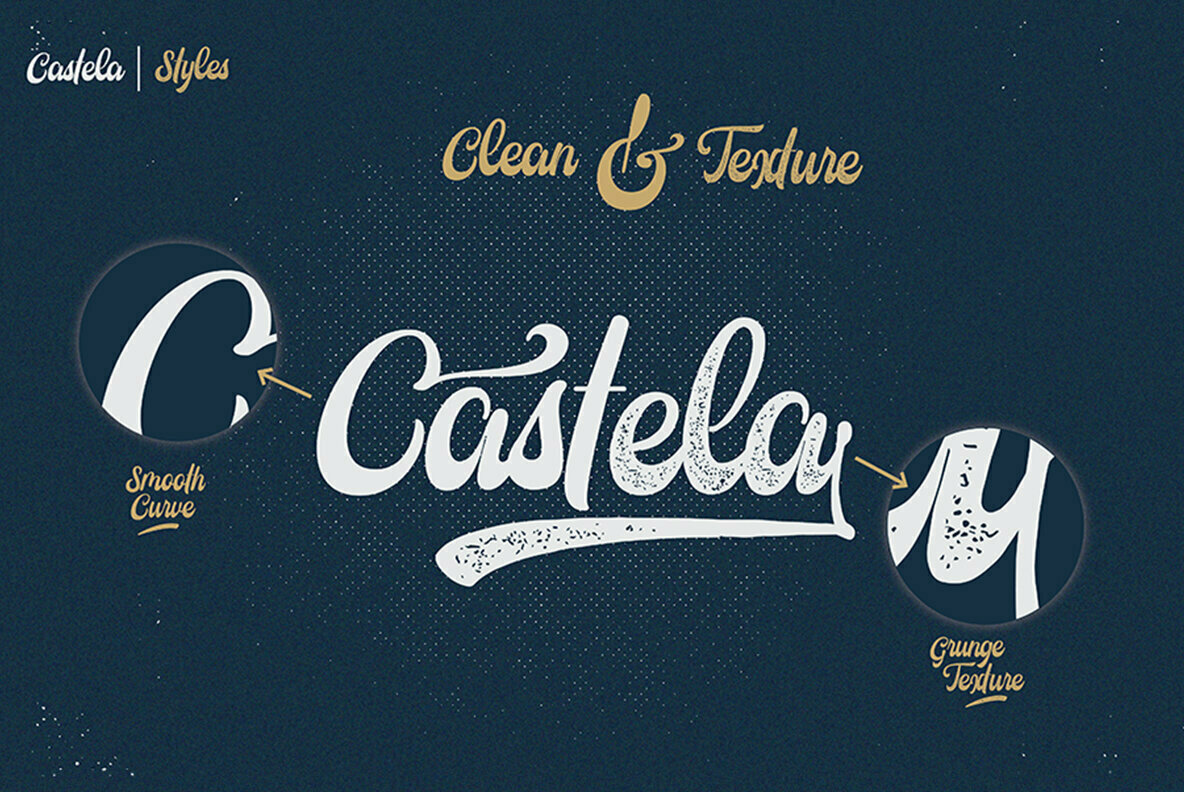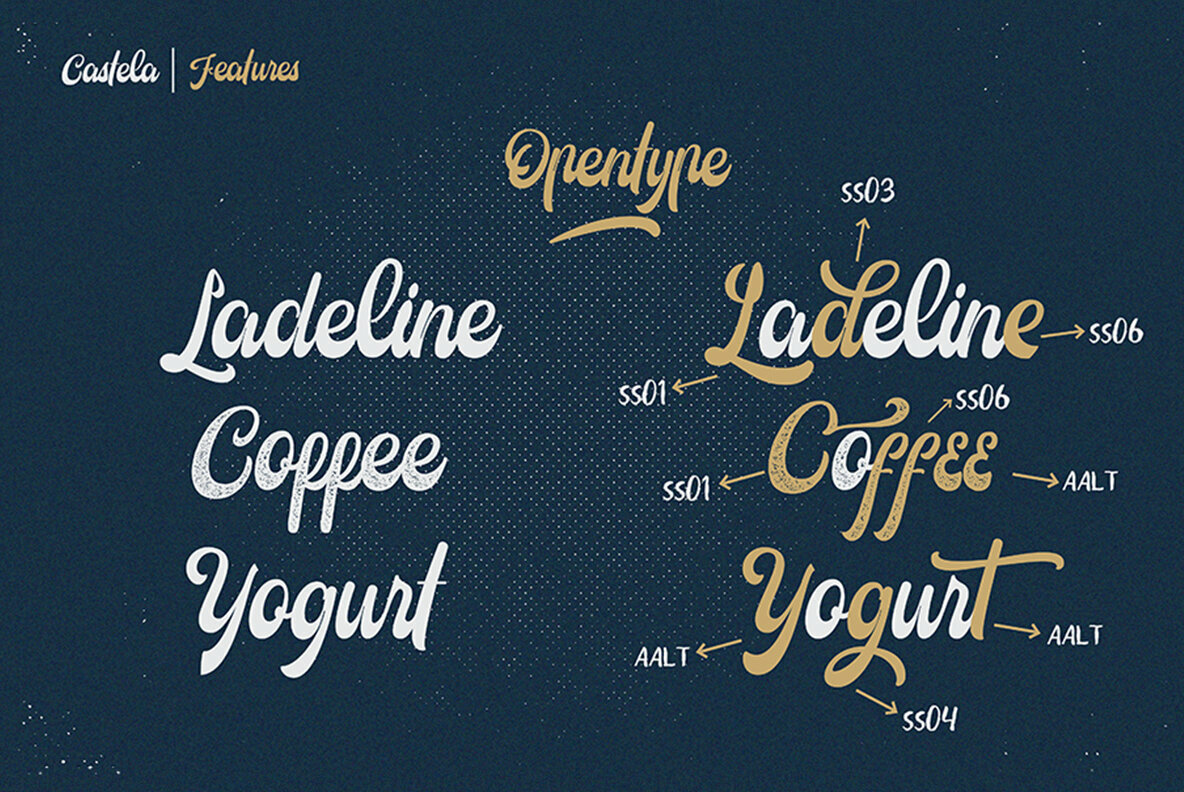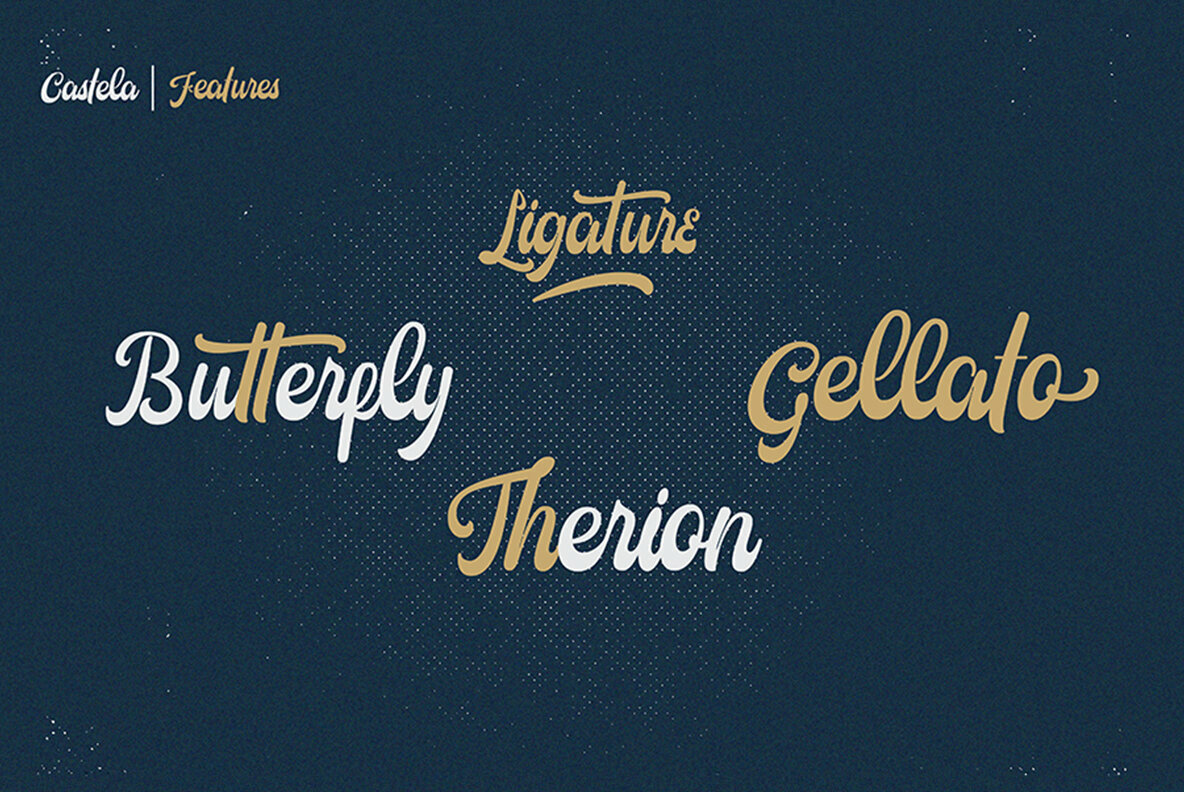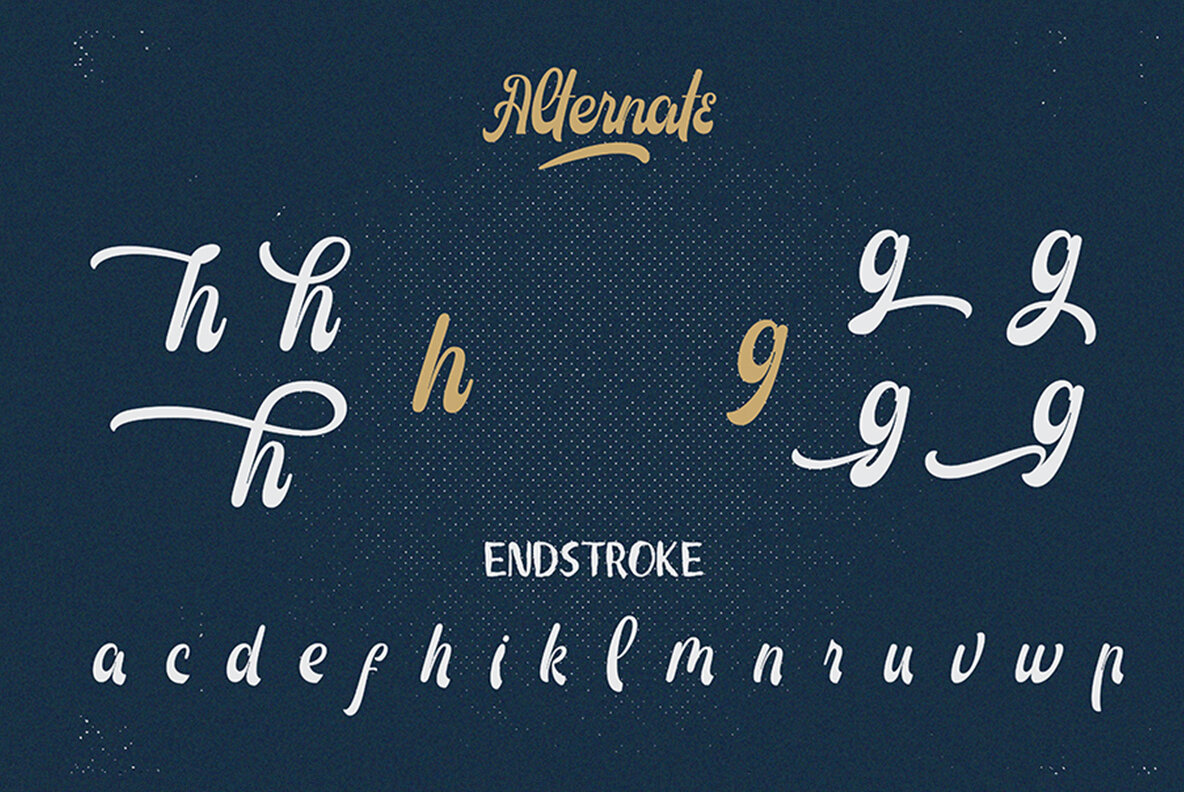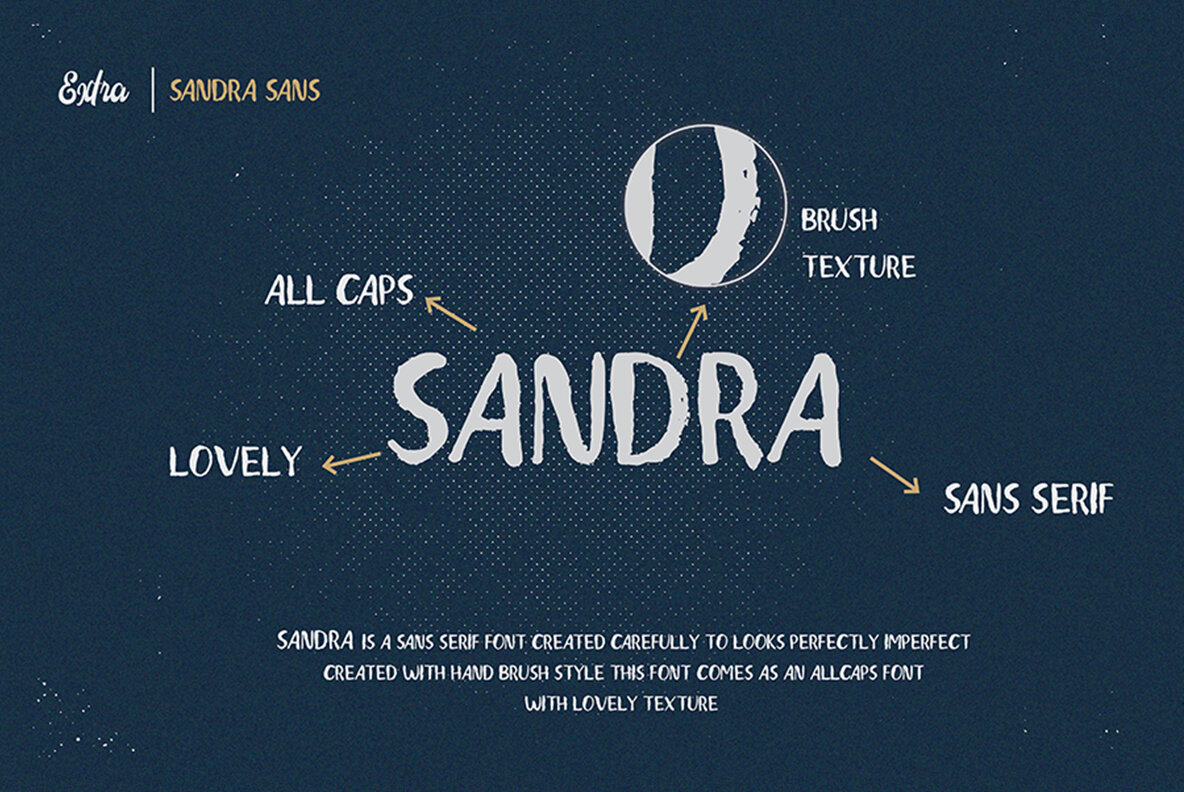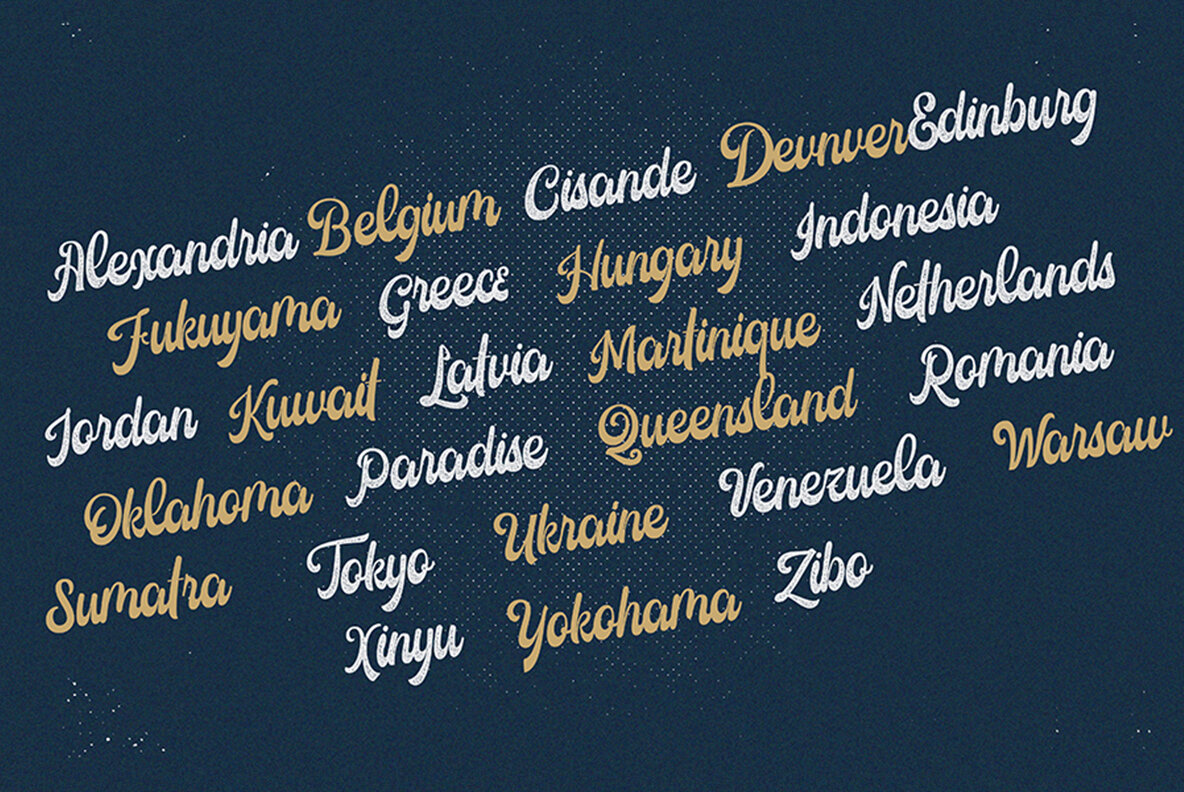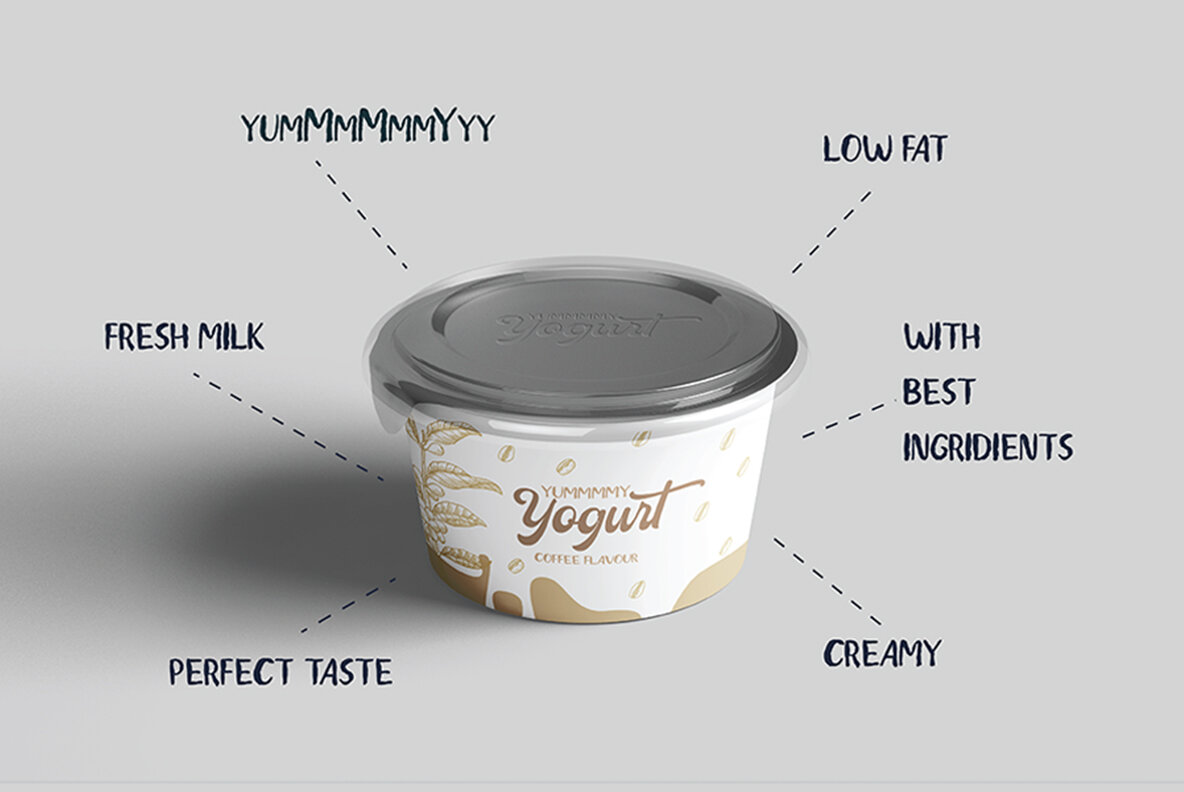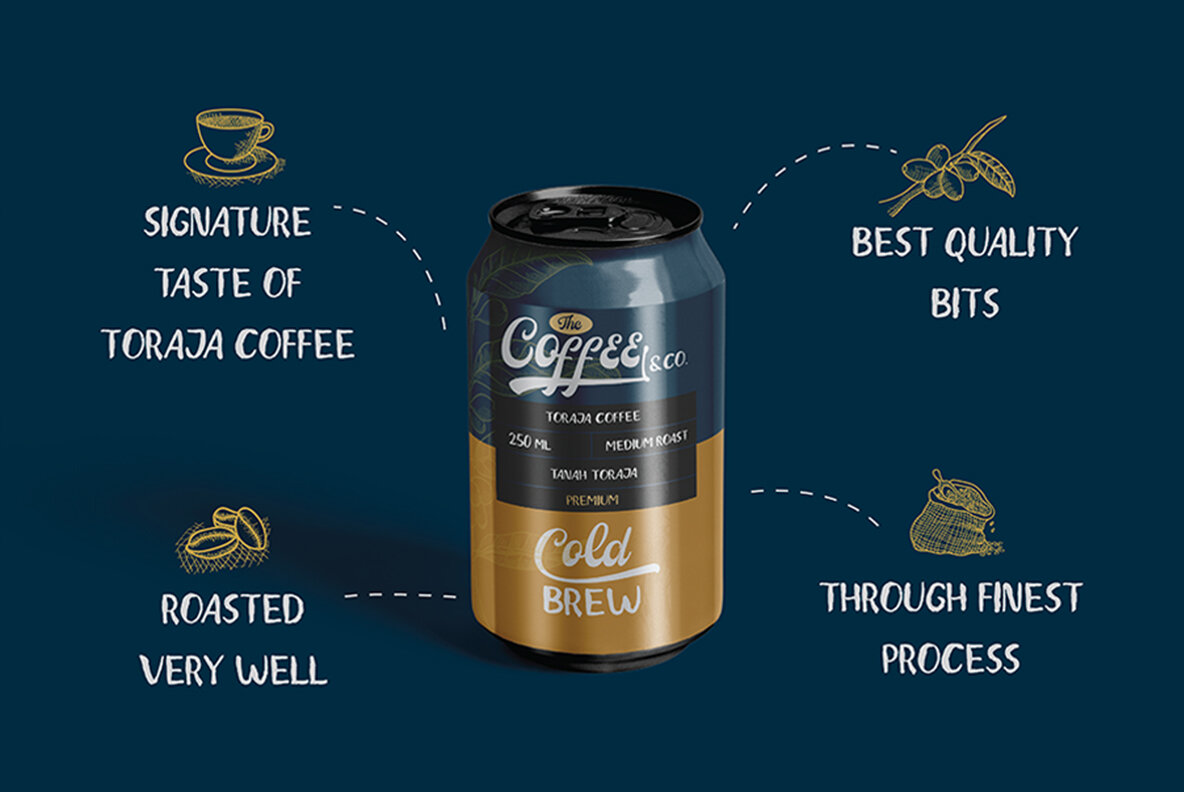
Castela Font
Castela Clean
Castela Texture
Inspired by the aesthetics of both modern and vintage packaging, Castela brings to life a script font imbued with a cozy, fluffy appearance. This thoughtfully designed typeface invokes a sense of nostalgia and warmth, enhancing your graphic design projects with its unique feel. Complementing Castela is Sandra, a rough sans serif font crafted to exude a perfectly imperfect character. Together, they form a balanced typographic pairing that elevates any design. We trust Castela and Sandra will inspire your creative journey.Castela: A Versatile Script with Fluffy Charm